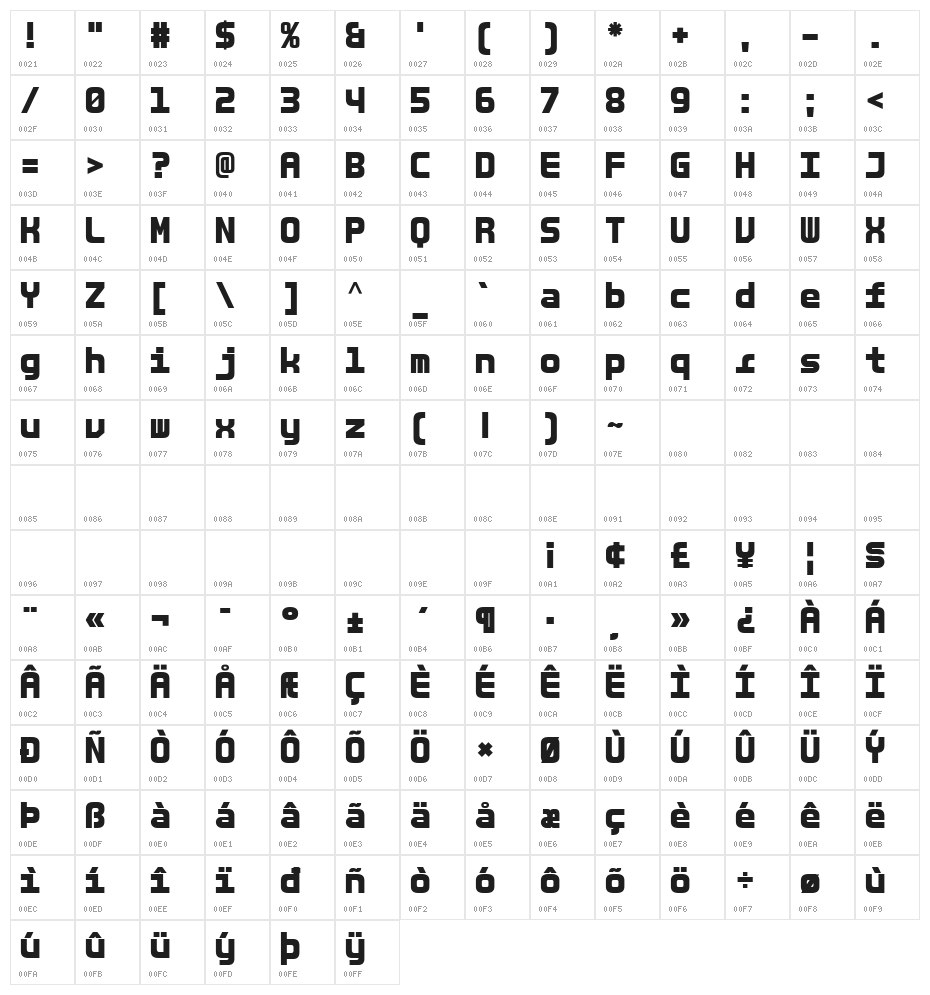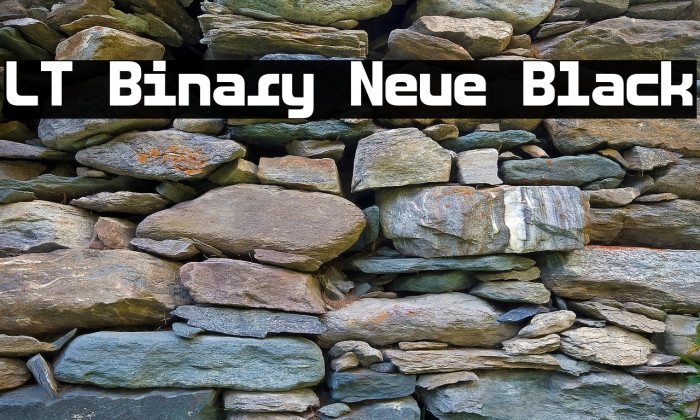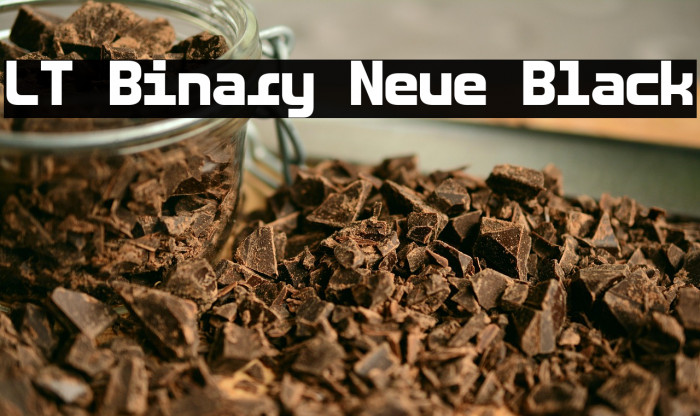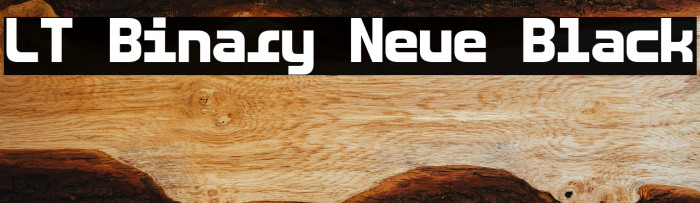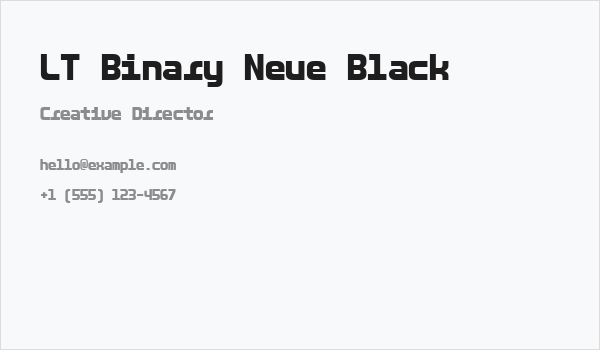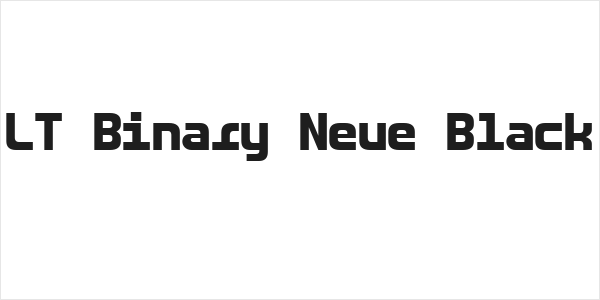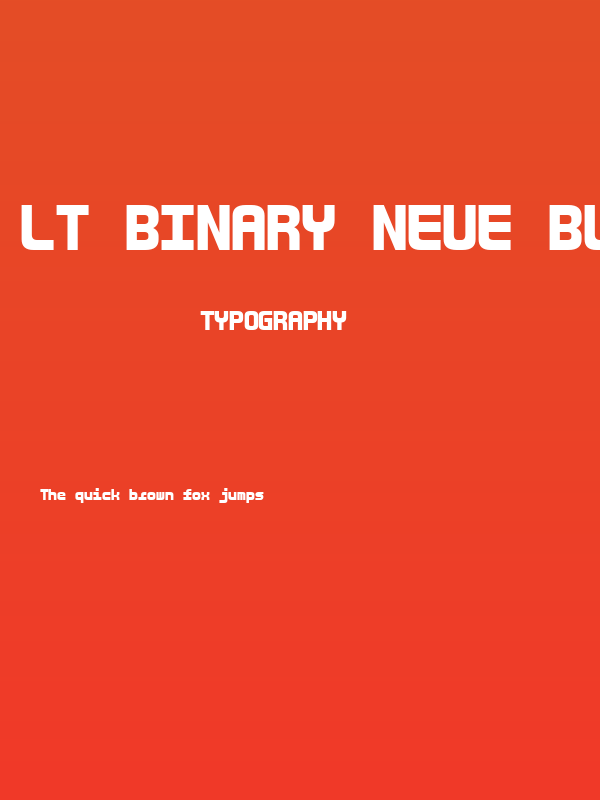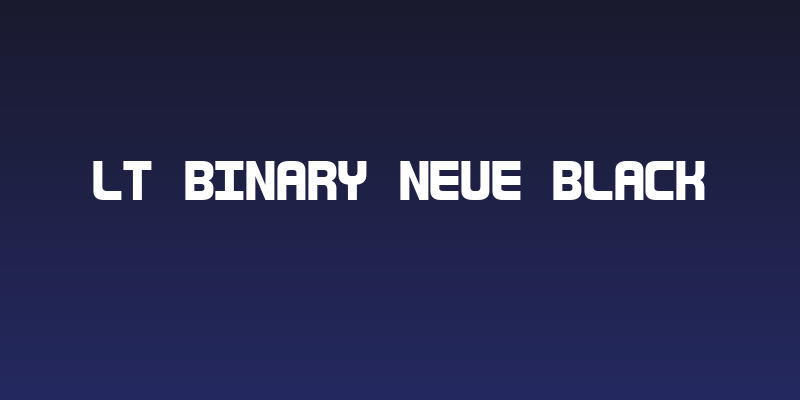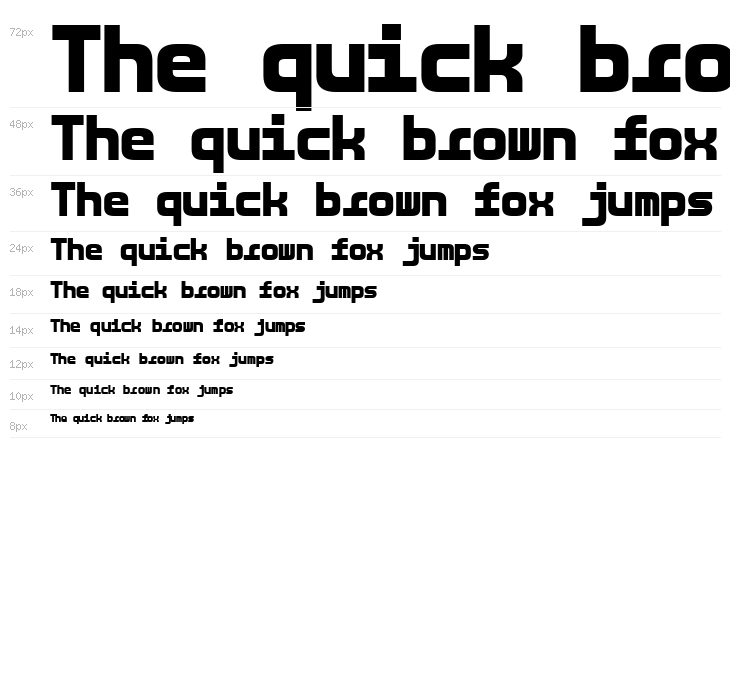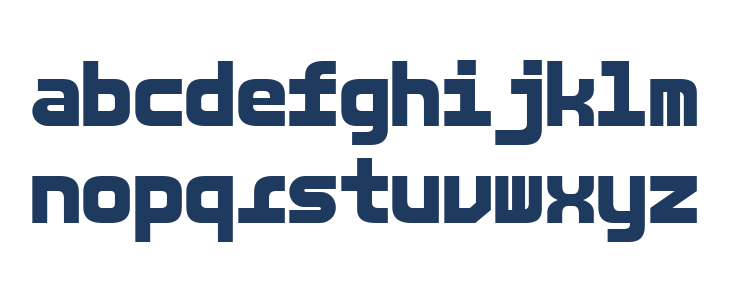
LT Binary Neue Black Font
LT Binary Neue Black Description
This font features a bold, geometric design with a strong, modern aesthetic. The characters are constructed with thick, uniform strokes, giving them a robust and impactful appearance. The uppercase and lowercase letters maintain a consistent style, with sharp angles and straight lines that emphasize a futuristic and digital feel. The numerals and special characters follow the same design principles, ensuring a cohesive look across all glyphs. This font's boldness and clarity make it suitable for attention-grabbing headlines and display purposes.
| Proposed Projects | Ideal for tech branding, digital interfaces, posters, and futuristic designs. |